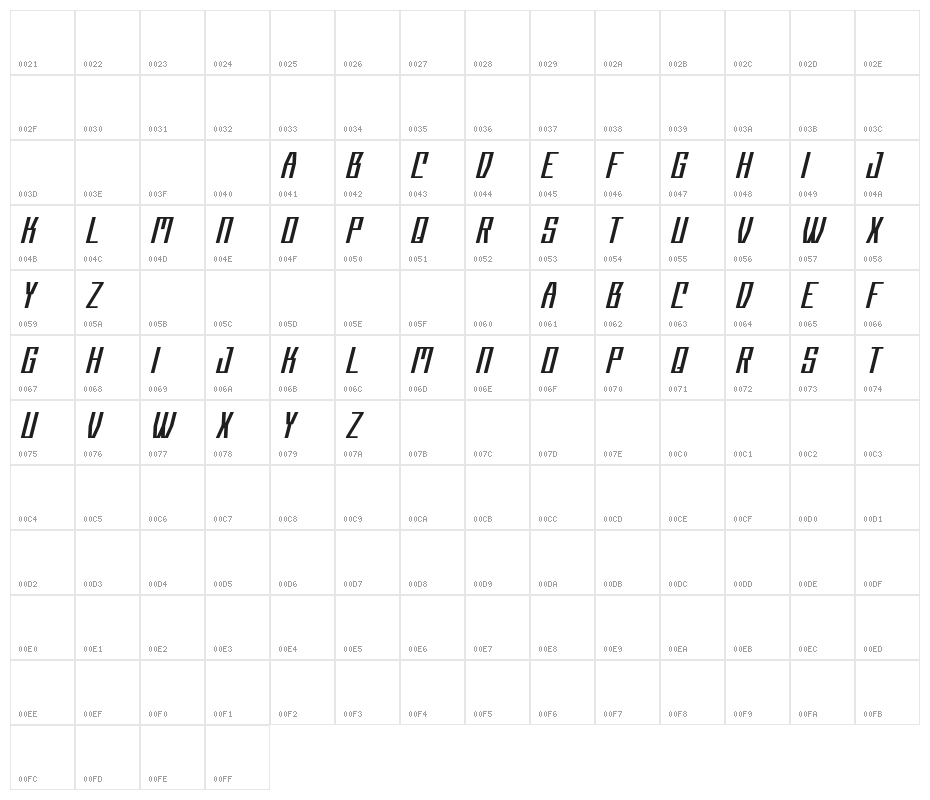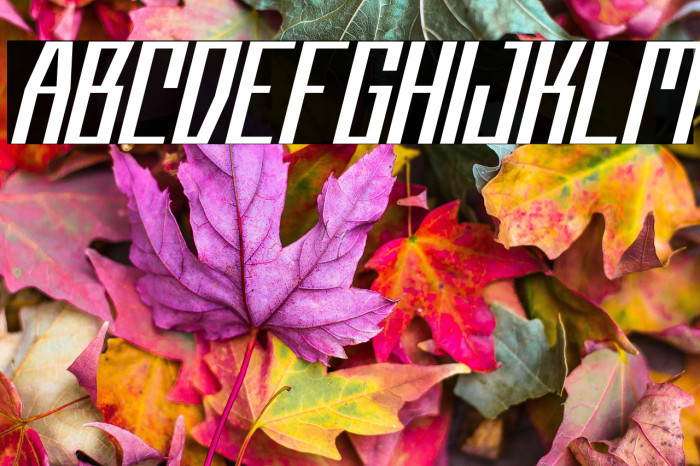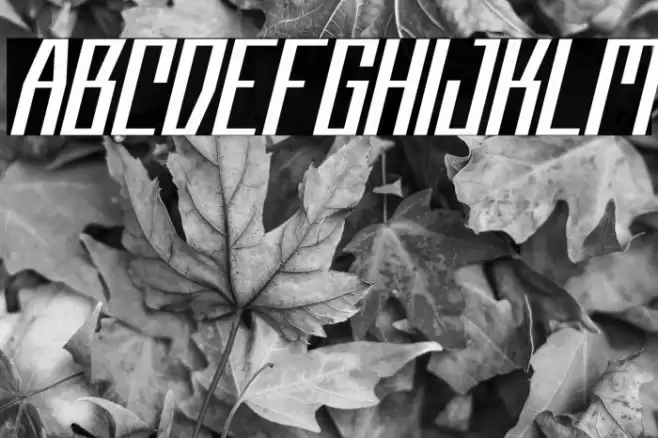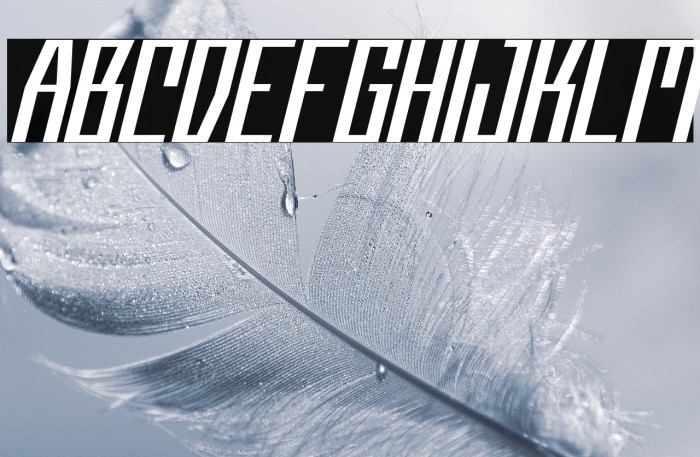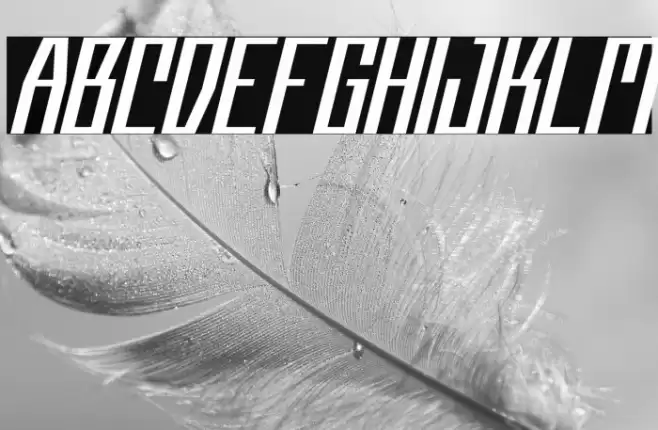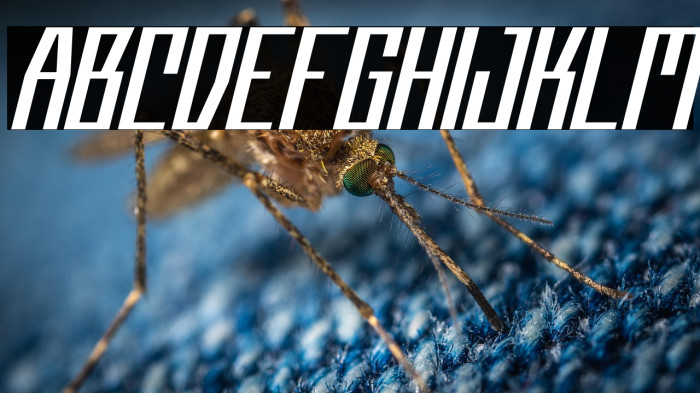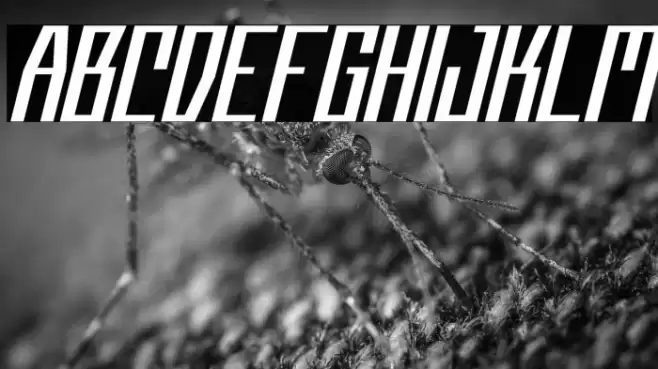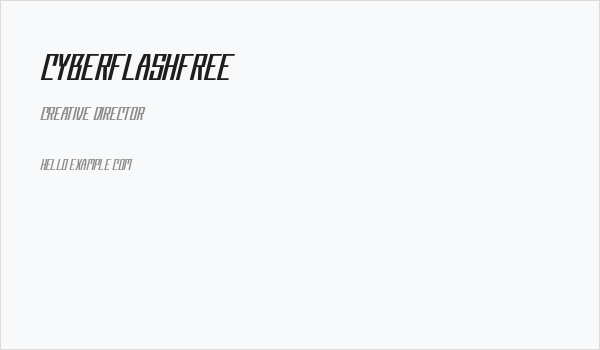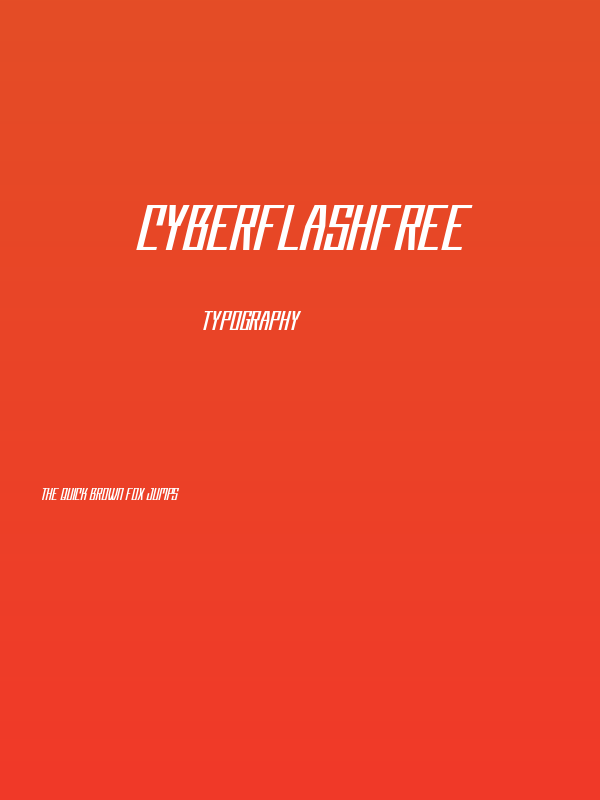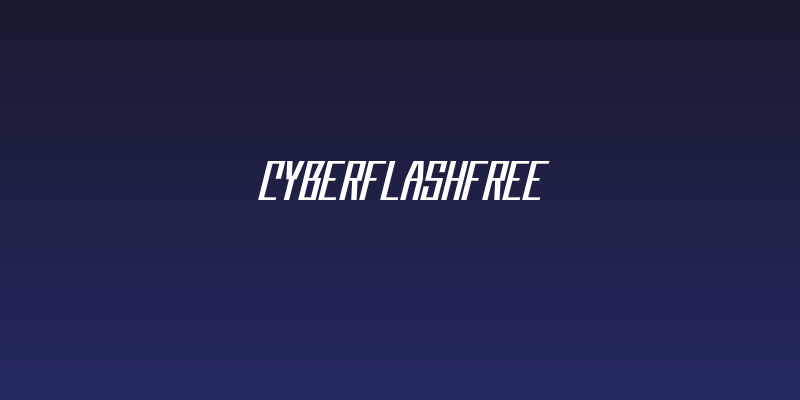
CyberflashFREE Font
CyberflashFREE Description
This font features a bold and dynamic design with a futuristic flair. The characters are sharply angled, giving them a sense of motion and speed. The uppercase letters are particularly striking, with elongated forms that emphasize their verticality. The overall appearance is sleek and modern, making it suitable for projects that require a cutting-edge aesthetic. The font's unique style is ideal for technology-related themes, sports branding, or any creative project that aims to capture attention with a bold statement.